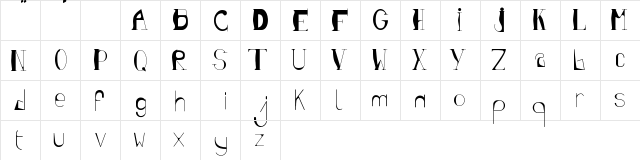
Youhou Regular
| Designer | LΡ Morand |
Design Context for Youhou Typeface
Youhou is a composed and adaptable typeface that performs quietly and consistently across a wide range of design contexts.